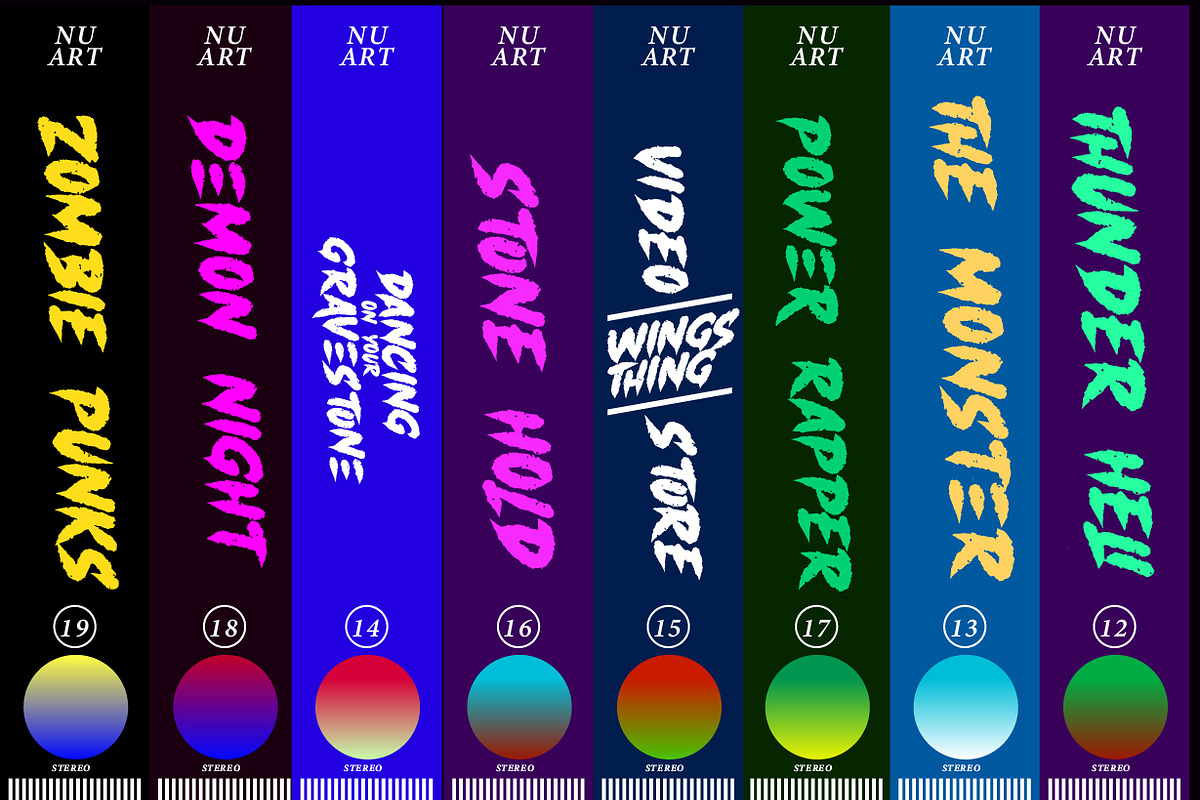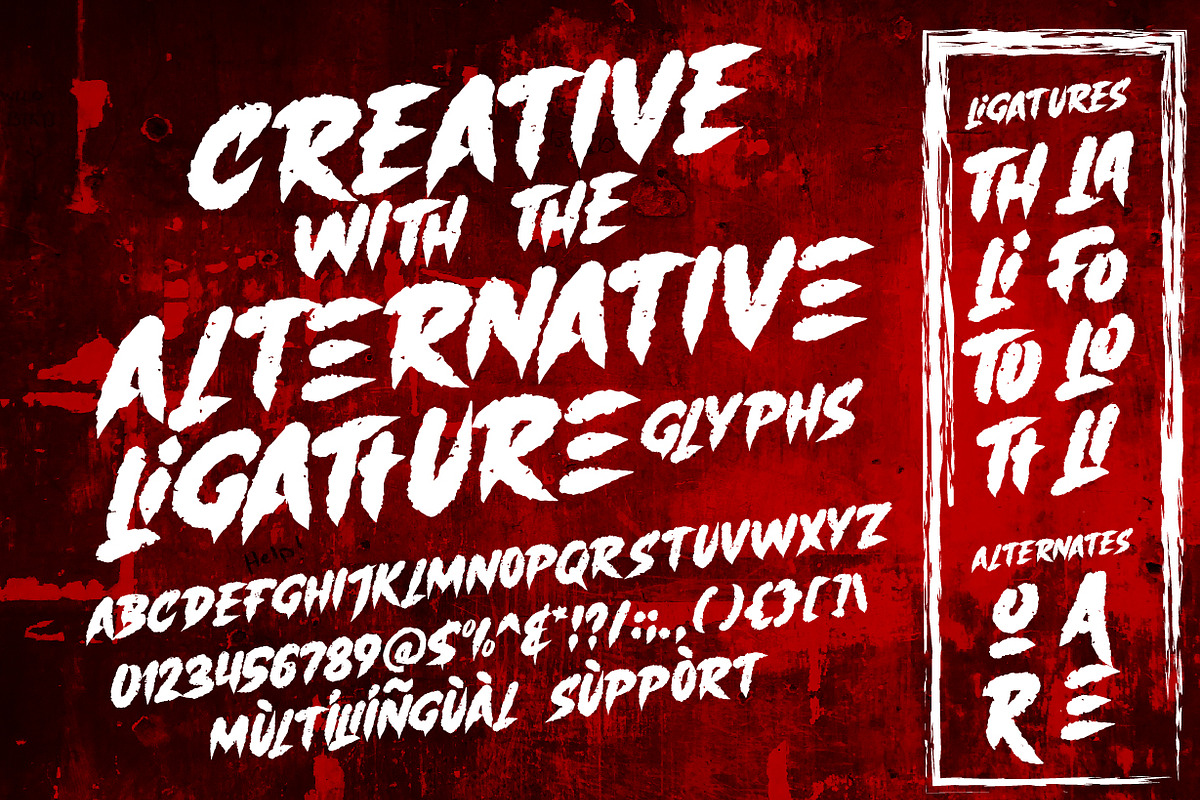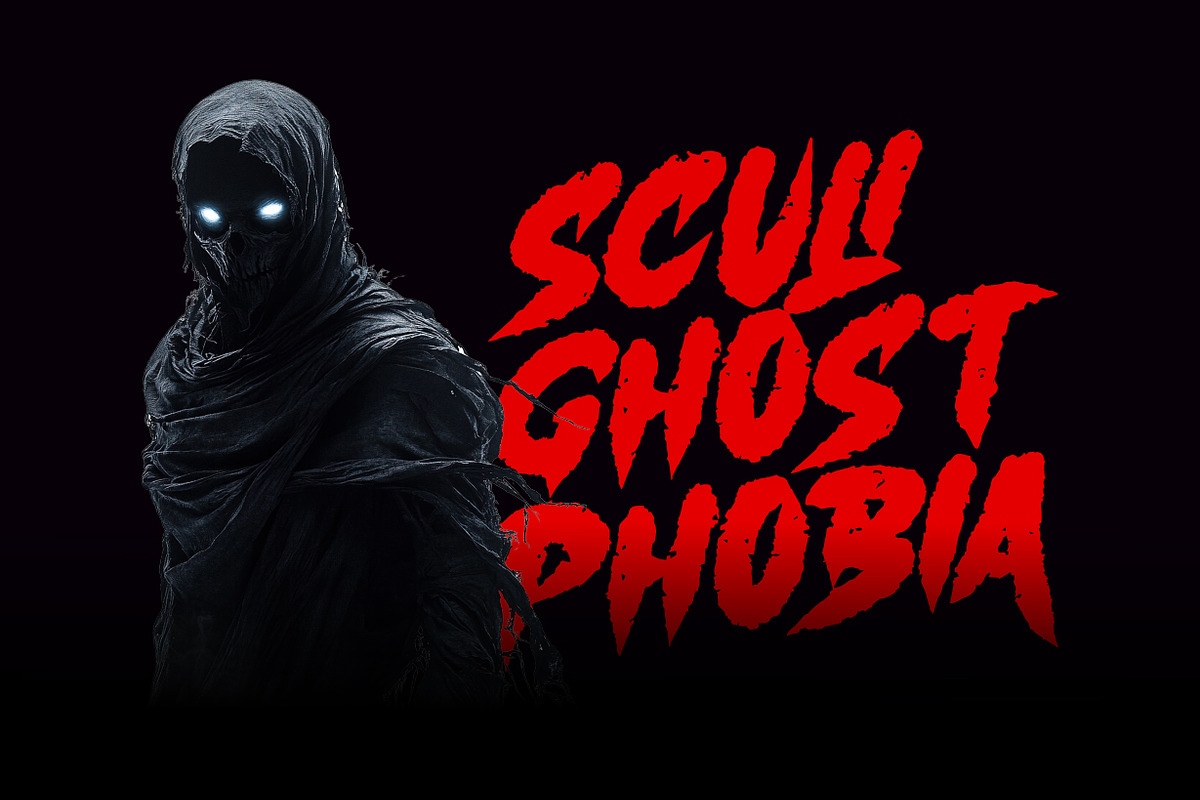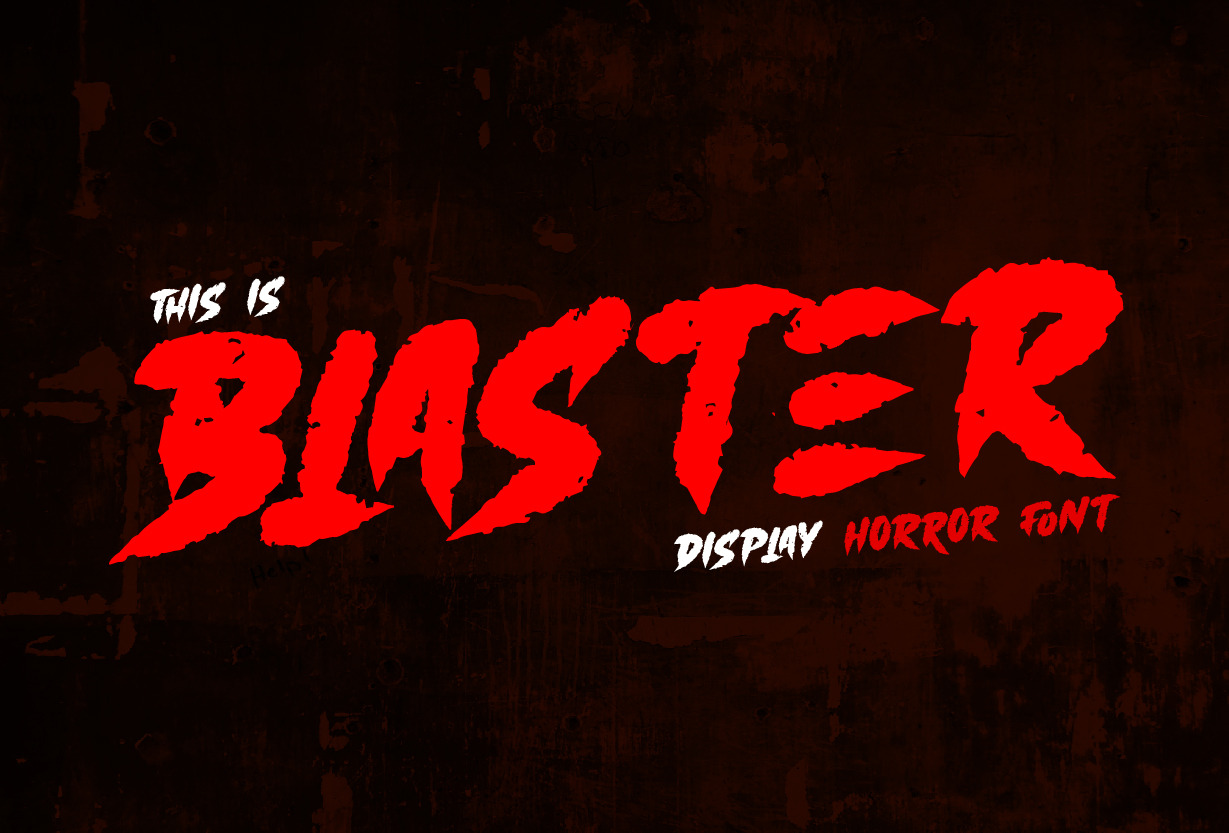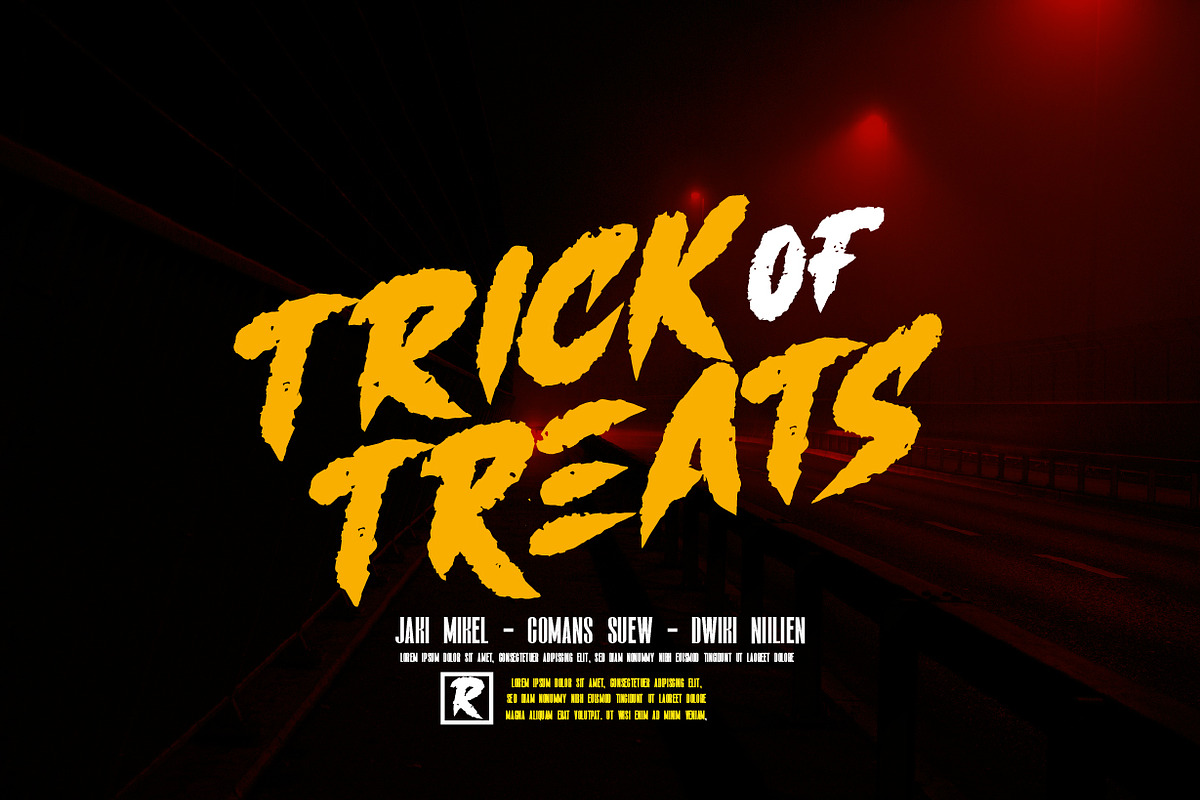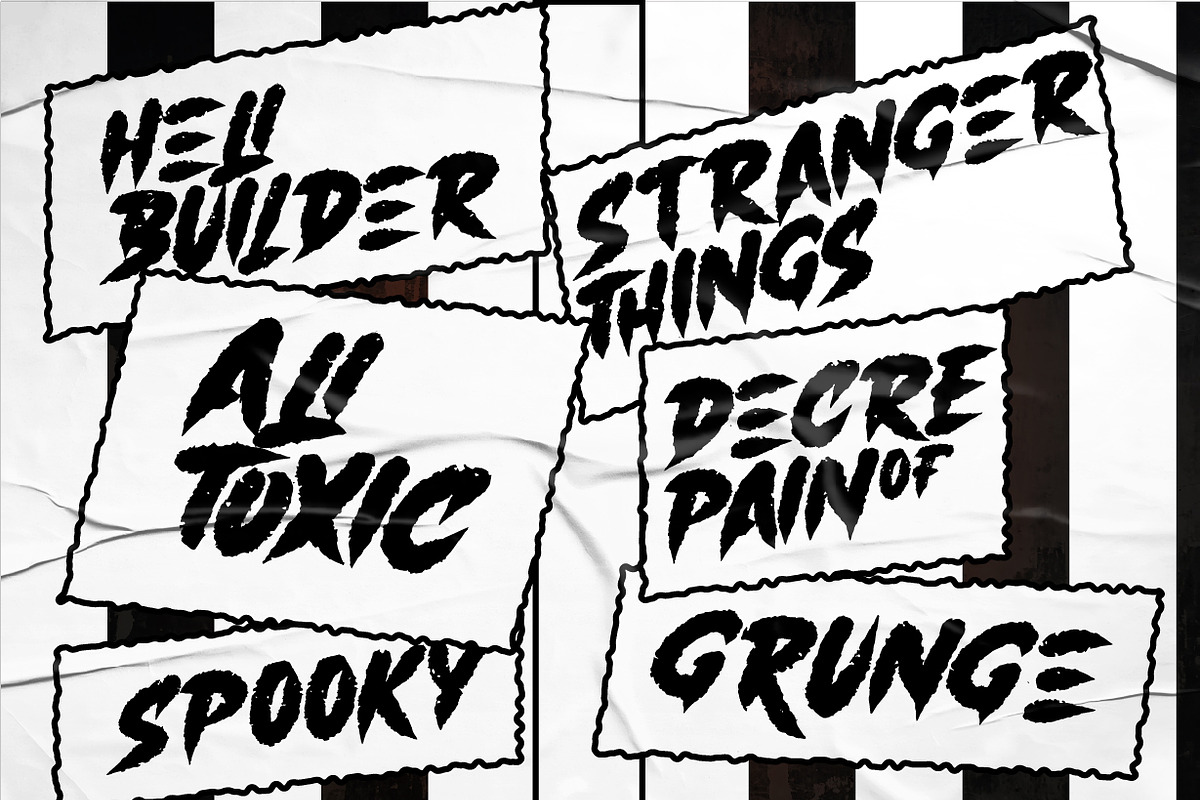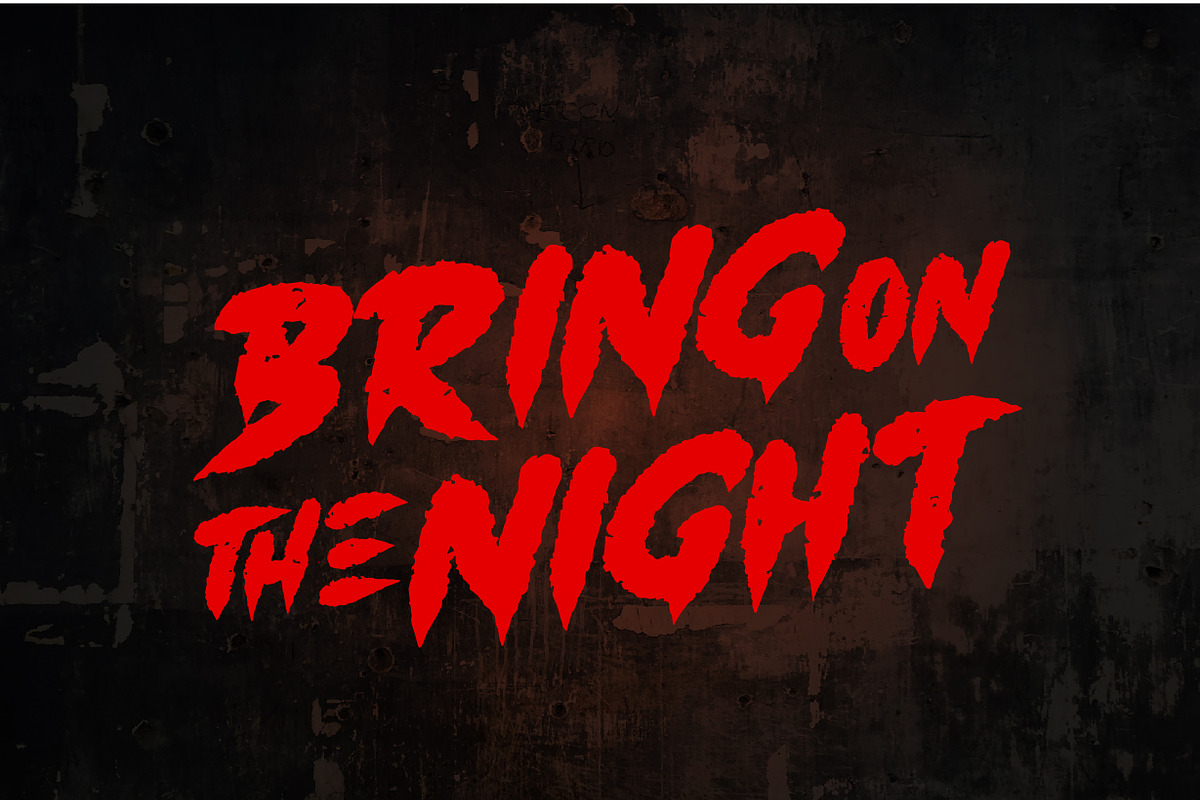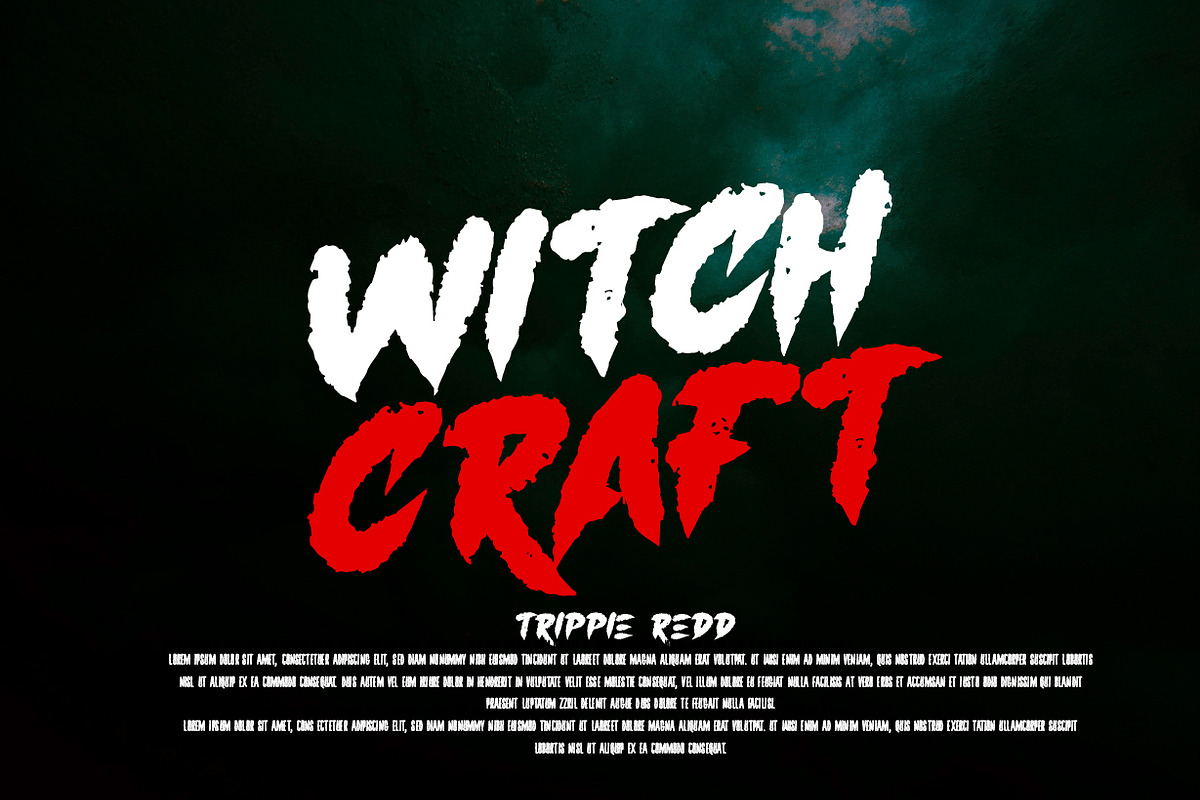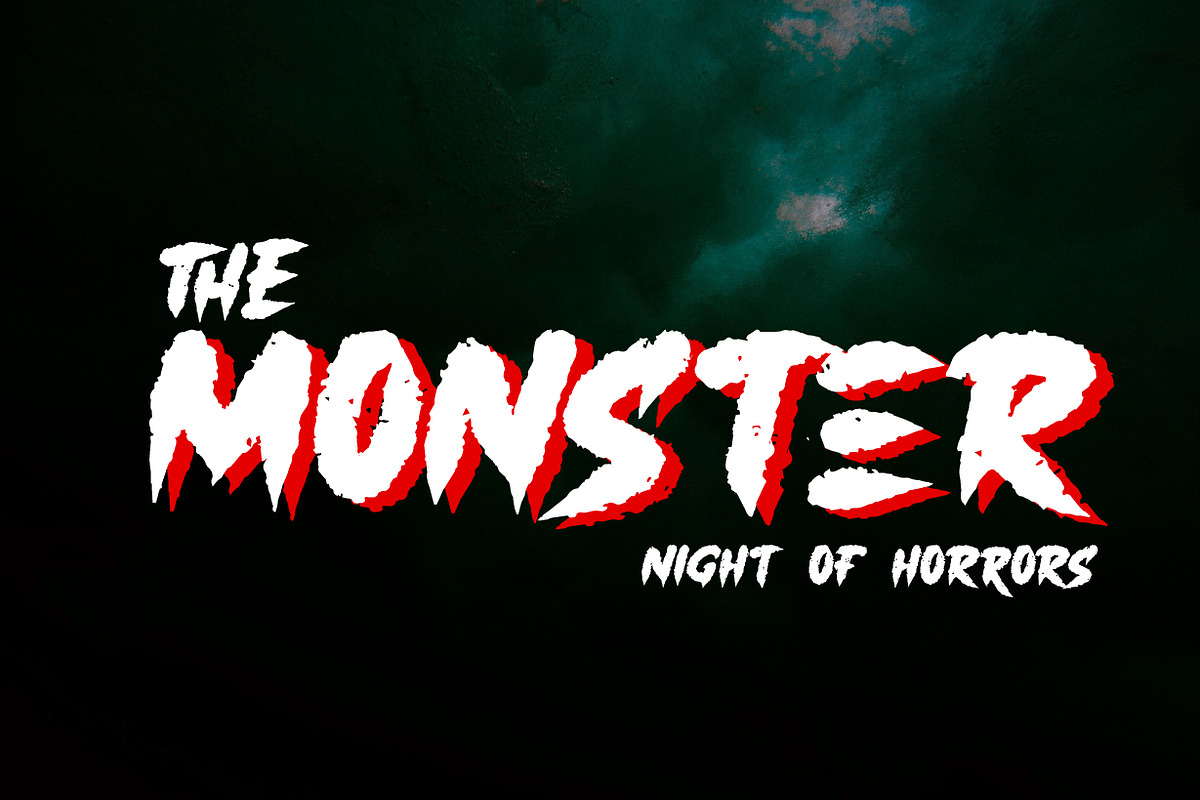
Blaster - Display Horor font
Blaster has a strong, aggressive look with sharp lines and curves. This font has hard corners and is slightly tilted towards the vertical, giving it a sharp and intimidating impression. accompanied by additional ligatures and alternates that you can adjust yourself. Can be applied as film poster designs, book covers, quotes, etc.
FEATURES;
Support Foreign, Numbers and Punctuation.
Alternates & Ligatures